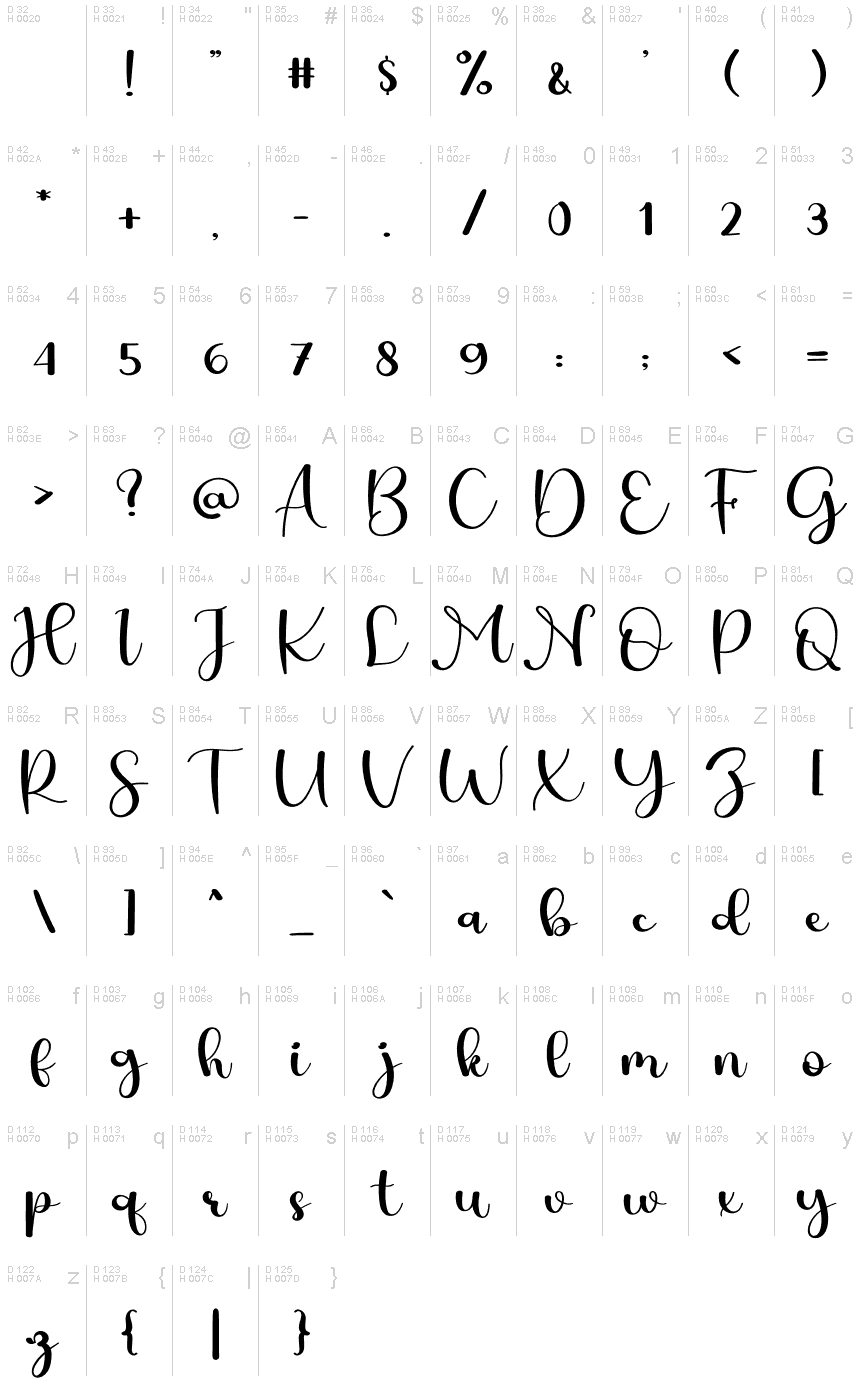
Brilliant Soulmate
Brilliant Soulmate is a stunning semi-light calligraphy font designed by Fana Merah Jambu. Its elegant curves and graceful strokes make it perfect for wedding invitations, greeting cards, and other formal projects. The font's sophisticated style also lends itself well to branding materials and product packaging. Whether you're looking to add a touch of class to your next project or create a timeless design that will stand the test of time, Brilliant Soulmate is the ideal choice for any creative endeavor.